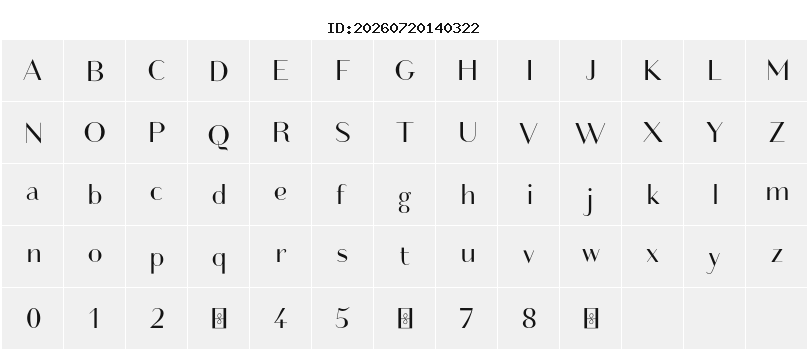
• Font Name: Friandise NormalDemo
• Font Style: NormalDemo
• Full Font Name: Friandise NormalDemo
About Friandise NormalDemo.otf
Friandise NormalDemo.otf is a modern, elegant sans-serif font designed for ultimate readability and visual harmony. Perfect for branding, headlines, web design, and print materials.